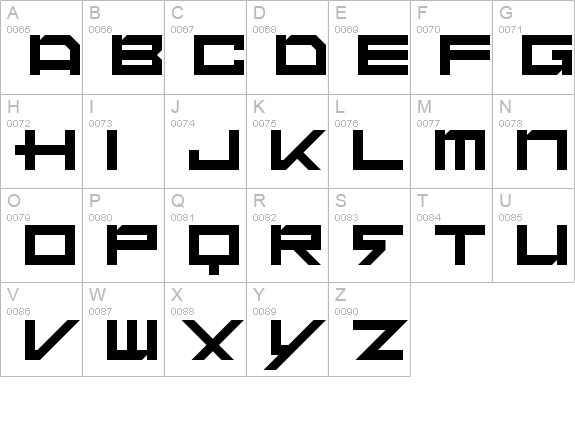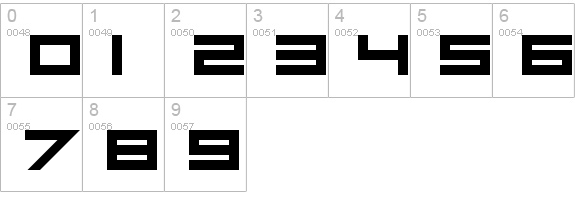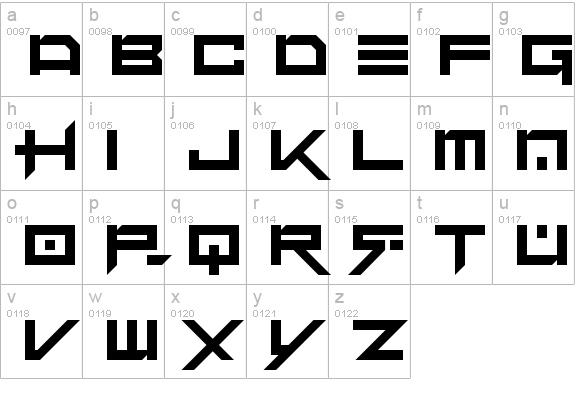
Dubstep Heroes Font Details
Dubstep Heroes font is a bold and cutting-edge typeface designed for those who want to make a statement with their typography. Inspired by the dynamic and pulsating beats of dubstep music, this font exudes energy and modernity. Its sharp edges and futuristic design make it perfect for creating eye-catching headlines, posters, and album covers.